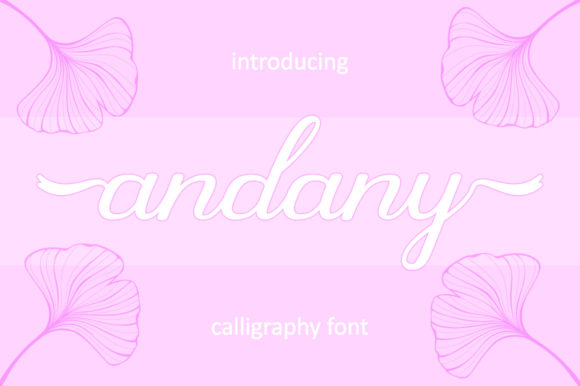
The Quest for the Perfect Font: Discovering Andany
I still remember the frustration of working on a design project, hours spent searching for the ideal font that would bring my vision to life. My client wanted an elegant, sophisticated look that would make their brand stand out. I scoured font libraries, but nothing seemed quite right – until I stumbled upon Andany. This beautiful script font has been a game-changer for my designs, and I’m excited to share its beauty with you.
First Impressions: A Love Affair with Andany
Andany is an elegant script font that exudes a contemporary atmosphere while maintaining impeccable form, inspired by timeless classic calligraphy. Its balanced and varied strokes are neither too thin nor too thick, making it perfect for a wide range of projects. Here are some things I love about Andany:
- ✨ Elegant and sophisticated, perfect for high-end branding and designs
- ✅ Well-balanced and varied strokes, making it easy to read and visually appealing
- 💫 PUA encoded for easy access to glyphs and swashes
- 🎨 Highly versatile, suitable for logos, invitations, packaging, and more
The Honest Review: Weighing the Pros and Cons
While Andany has stolen my heart, it’s essential to mention a few quirks:
- ⚠️ Some users might find the font a bit too ornate for very casual or playful designs
- 🤔 Limited availability of certain characters or ligatures, but this can be addressed with OpenType features
The Story Behind Andany: Designer Inspiration
Andany was crafted with passion and dedication by a talented type designer who drew inspiration from timeless classic calligraphy. With a keen eye for detail and a deep understanding of typography, the designer aimed to create a font that would be both elegant and versatile. Although the designer’s story is shrouded in mystery, their work speaks volumes about their commitment to creating beautiful, functional typefaces.
Q: What is PUA encoding, and how does it benefit Andany users?
A: PUA (Private Use Area) encoding allows users to access a wide range of glyphs and swashes, making it easier to customize and personalize their designs.
Q: Is Andany suitable for body text or long-form content?
A: While Andany is an elegant font, it’s primarily designed for display purposes. For body text or long-form content, you may want to consider a more legible font.